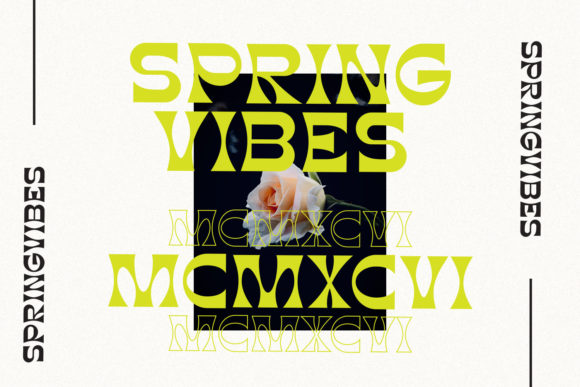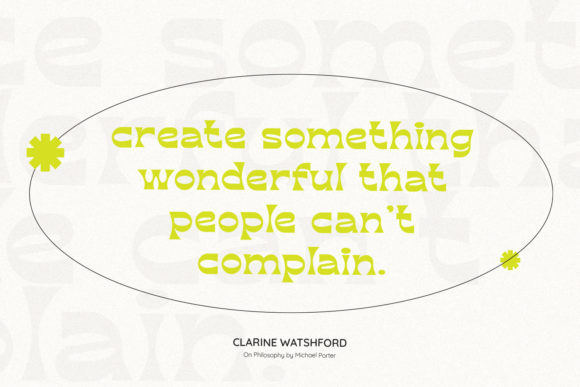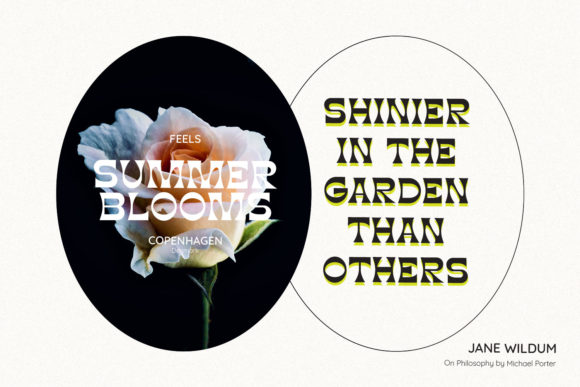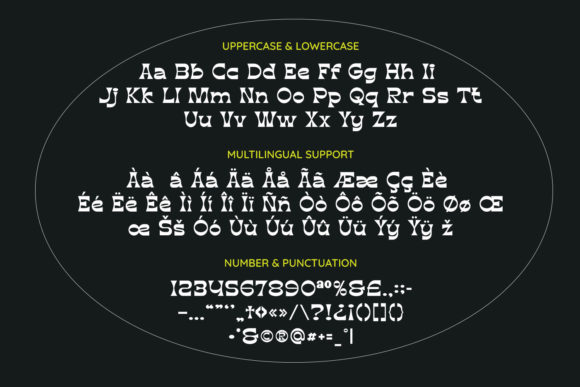
Introduction to Mastia Font
Imagine you’re working on a creative project and you need a typography that screams boldness and uniqueness. You’ve spent hours browsing through design resources, searching for that perfect font that will elevate your design to the next level. But, somehow, nothing seems to fit the vibe you’re going for. That’s where Mastia Font comes in – a high-quality, western-inspired display font that’s sure to leave a lasting impression.
With its imposing and uniquely shaped letters, Mastia Font is the perfect addition to any design project that requires a distinct touch. Whether you’re working on a branding project, a poster, or a social media graphic, this font is sure to make your design stand out from the crowd. And the best part? It’s available for free download with a transparent background, making it easy to incorporate into your creative project.
- Mastia Font is designed to be highly legible and versatile, making it suitable for a wide range of creative projects.
- It is a unique and creative font that can add a touch of elegance to any design, making it a valuable resource for designers.
Honest Review: Mastia Font
Mastia Font is a fantastic addition to any design resource library. I’ve had the pleasure of working with it on a few creative projects, and I must say, it’s a game-changer. ✨ The font’s elegant and modern design makes it perfect for anything from logos to typography-heavy websites.
Here are some of the things I love about Mastia Font:
- High-quality design that’s both modern and timeless
- Perfect for creative projects that require a touch of elegance
- Some users may find the font’s bold lines too thick for certain designs
- The font’s limited character set may be a concern for designers who require a wide range of special characters
Overall, I’m thoroughly impressed with Mastia Font. Its unique design and versatility make it a valuable addition to any design library. While it may not be perfect for every project, it’s certainly a solid choice for designers looking for a high-quality, modern font.
Common Use Cases for Mastia Font
Mastia Font is commonly used in various creative projects, including:
– Graphic design
– Digital art
– Print materials
– Web design